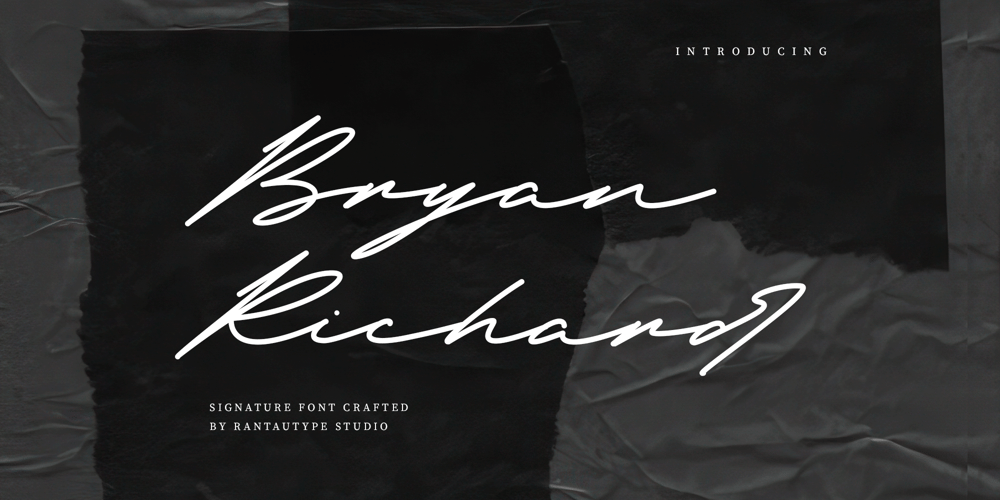
Bryan Richard Font Family was designed by Yudi Pratama Chandra and published by RantauType. Bryan Richard contains 1 styles and family package options. Bryan Richard is signature font with elegant and luxury sense. Bryan Richard bring trend of stylish brand to signature visual font to make brand more stand out and eye catch. We keep this font look fashionable, luxury, elegant, classy and stylish.Bryan Richard is perfectly choice for any creative endeavor, chic, lifestyle design such as logos, title, watermark on photography, cover, branding, display and magazine, wedding event, corporate brand, quotes, album cover, business card, business project and many other design project with handwritten taste.What you have: Standart Gylphs Numberial and Functional Ligature and alternate Works on PC & Mac Simple installations Accessible in Adobe Illustrator, Adobe Photoshop, Adobe InDesign, even work on Microsoft Word. Fonts include multilingual support for: Afrikaans, Albanian, Asu, Basque, Bemba, Bena, Breton, Chiga, Cornish, Dutch, English, Estonian, Filipino, Finnish, Friulian, Galician, Gusii, Indonesian, Irish, Italian, Kabuverdianu, Kalenjin, Kinyarwanda, Luo, Luxembourgish, Luyia, Machame, Makhuwa-Meetto, Makonde, Malagasy, Manx, Morisyen, North, Ndebele, Nyankole, Oromo, Portuguese, Quechua, Romansh, Rombo, Rundi, Rwa, Samburu, Sango, Sangu, Scottish, Gaelic, Sena, Shambala, Shona, Soga, Somali, Spanish, Swahili, Swedish, Swiss, German.Thank you for your purchase!Hope you enjoy with our font!